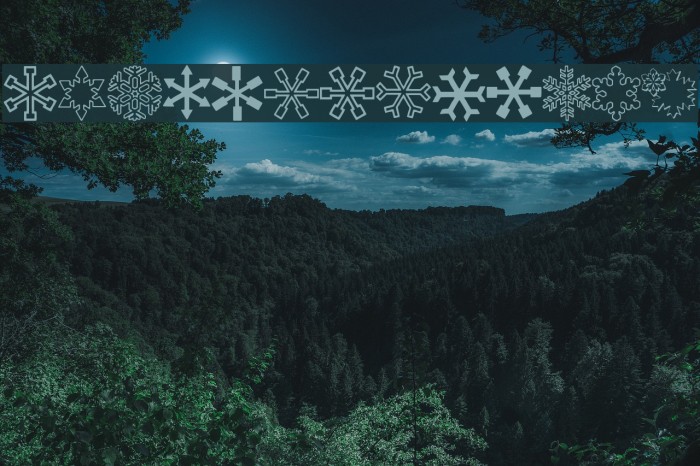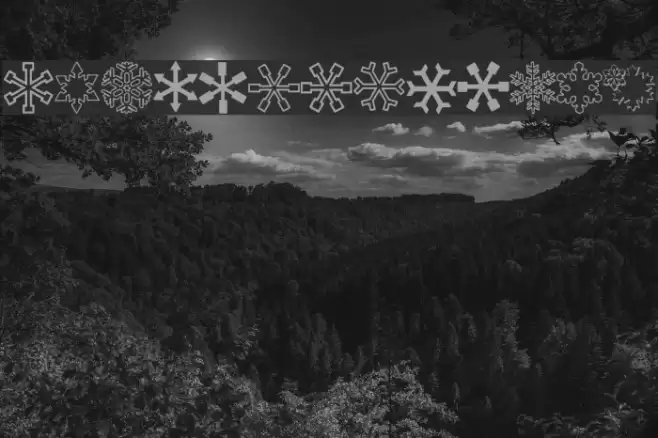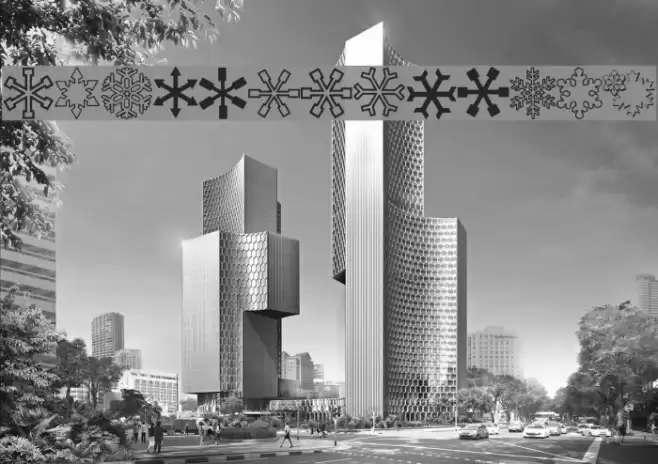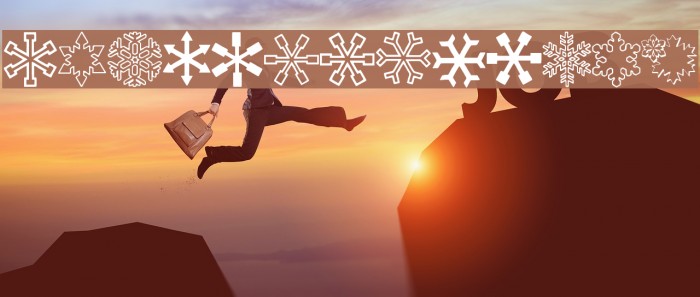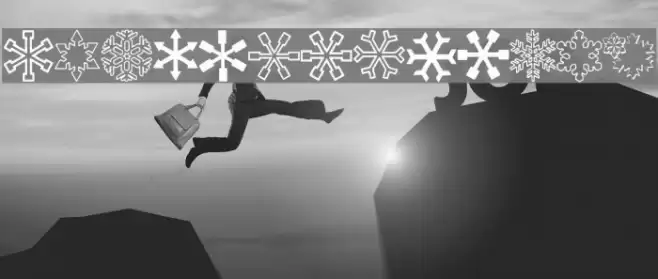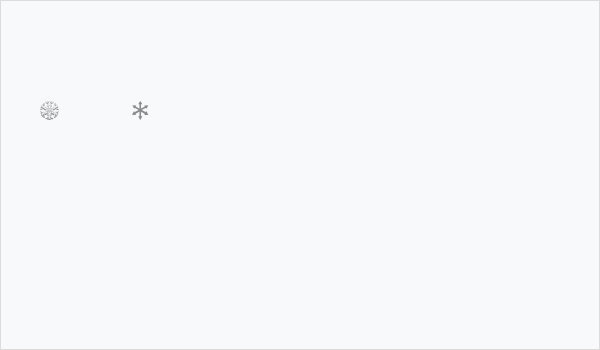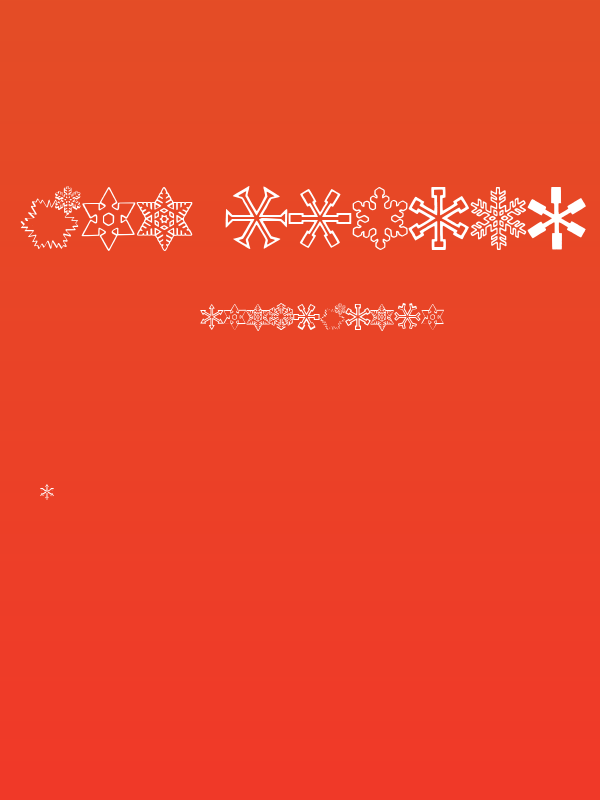
ryp_sflake8 Font
ryp_sflake8 Description
A decorative font composed entirely of various snowflake and asterisk-like symbols, each character featuring unique geometric or organic snowflake designs with both filled and outlined styles.
| Overall Style | Decorative, Seasonal, Playful |
| Use Case | Borders, dividers, decorative accents, thematic graphics. |
| Proposed Projects | Holiday cards, winter event invitations, seasonal posters, festive banners, digital scrapbooking. |